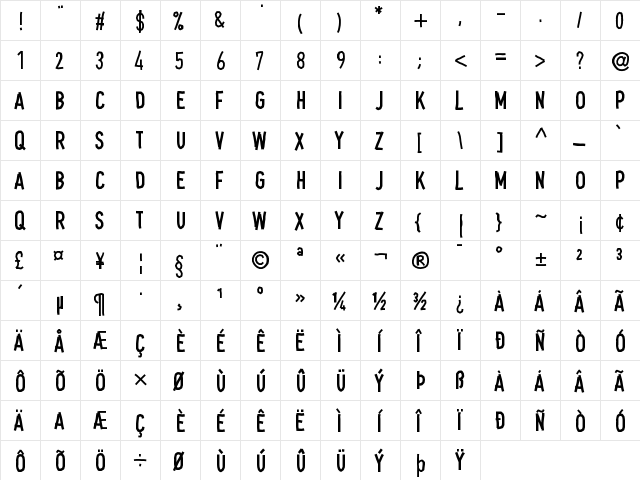
Din Tape Medium
| Designer | Lionel Pailloncy |
Design Context for Din Tape Typeface
Din Tape offers clean, dependable letterforms without strong stylistic allegiance, making it a practical choice for designers who need flexibility.